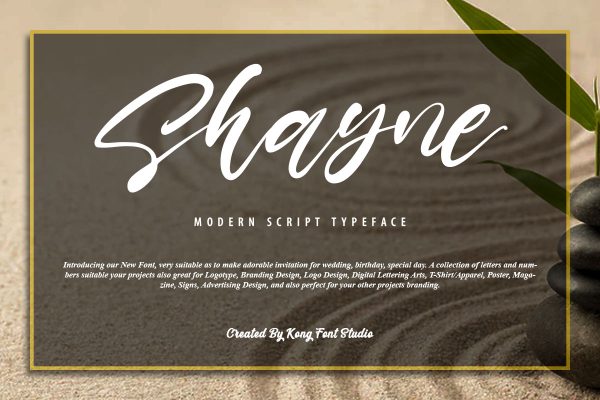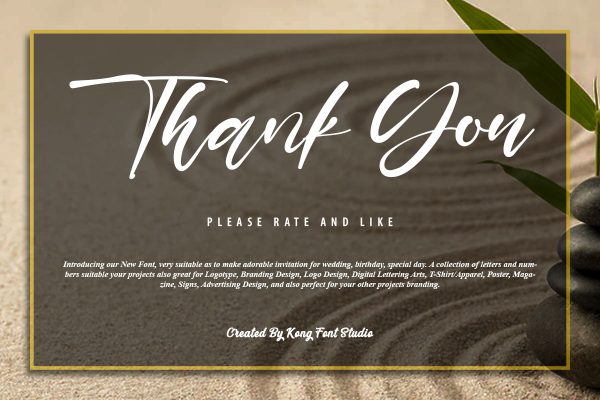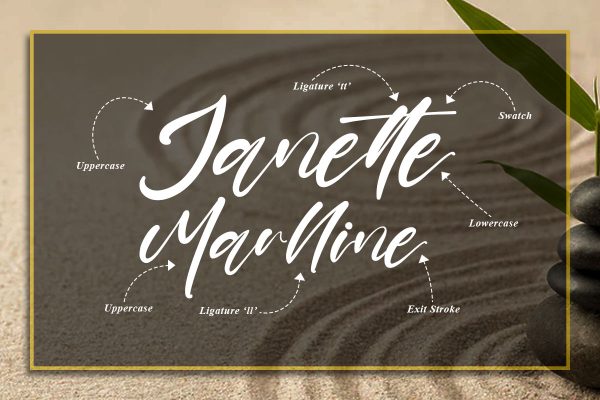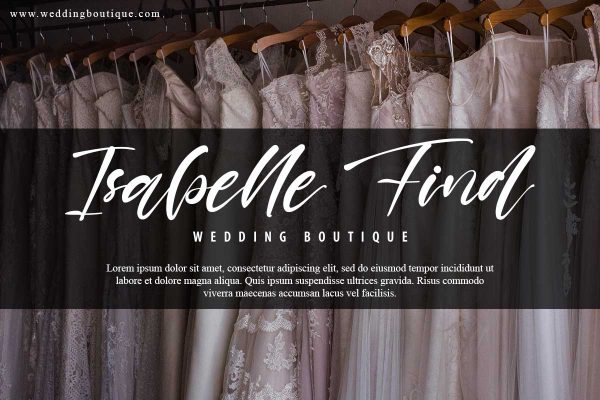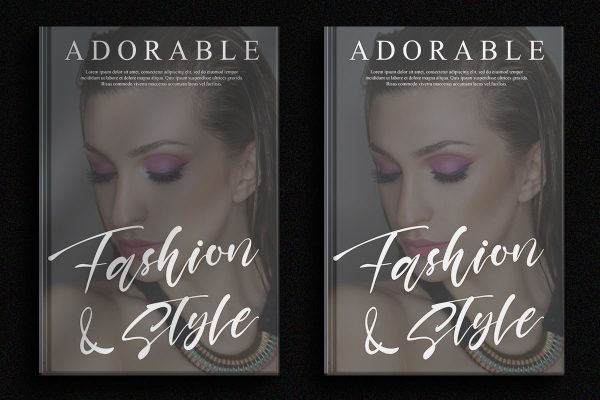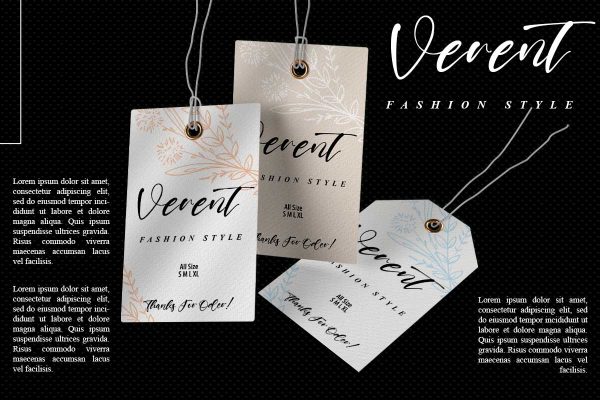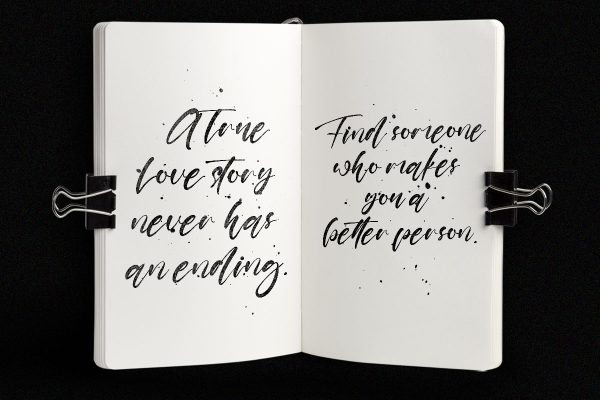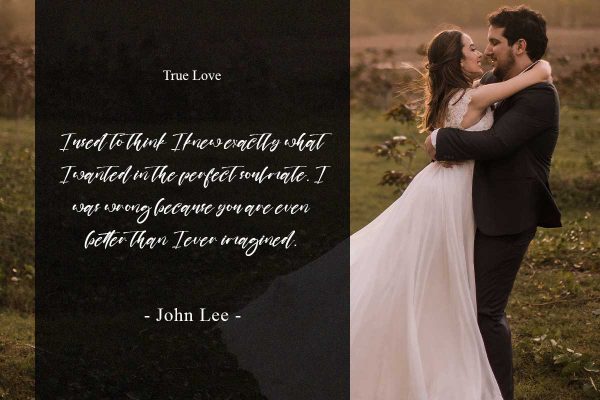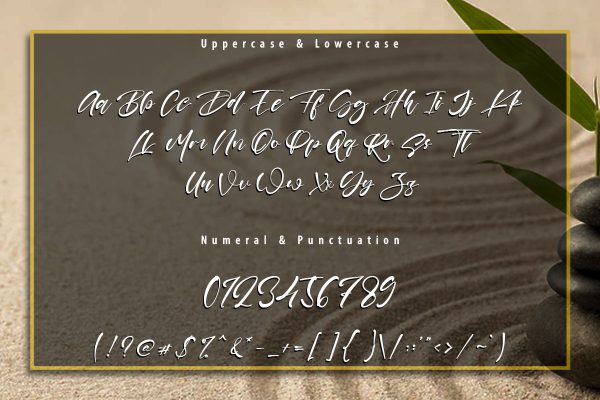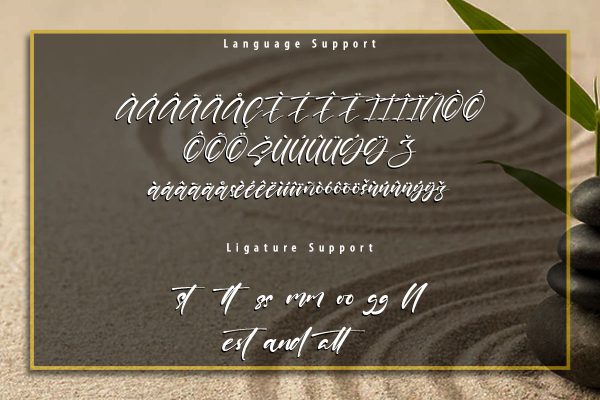
Shayne Calligraphy Script Font Beautiful fonts are certainly not created just like that. Shayne Calligraphy Script Font exists as proof that fonts can exude an aura of their own. This font is part of the Script & Signature fonts. The font was in beautiful shape. We can see the characteristics of the fonts that connect each other between the letters. It includes eligible fonts. Shayne Calligraphy Script Font appearance makes it suitable to be combined with objects that want to present a simple, elegant, and luxurious impression. Perfume brands will look more charming when combined with this font. Also, this font can use on weddings, posters, and magazine covers. It is also good to use for photography services promotion, making motivational quotes, and film titles. From the description of the characteristics and uses mentioned above, Shayne Calligraphy Script Font is very suitable when used with medium font size. If printed in large size and viewed from a distance, it will not be easy to read and understand. Our collection of script & signature fonts is compatible with Figma Fonts, Canva Fonts, Freepik Fonts, and Adobe Fonts. They also work as Windows and Apple Fonts. For your social media needs, you can use and install fonts in our Script & Signature font collection to use as Instagram Fonts, Facebook Fonts, and Twitter Fonts.